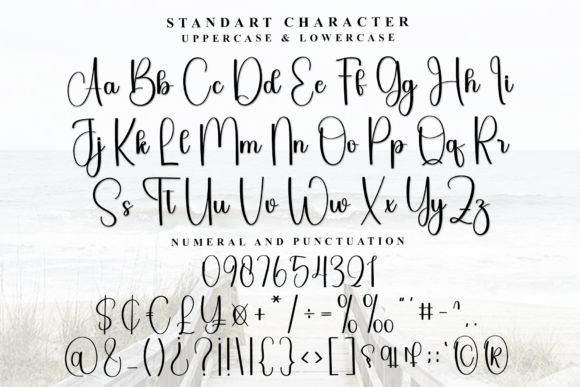
Roasted Bakery Font
Roasted Bakery is a flowing handwritten font, described by an elegant touch, perfect for your favorite projects. Fall in love with its incredibly distinct and timeless style and use it to create spectacular designs!